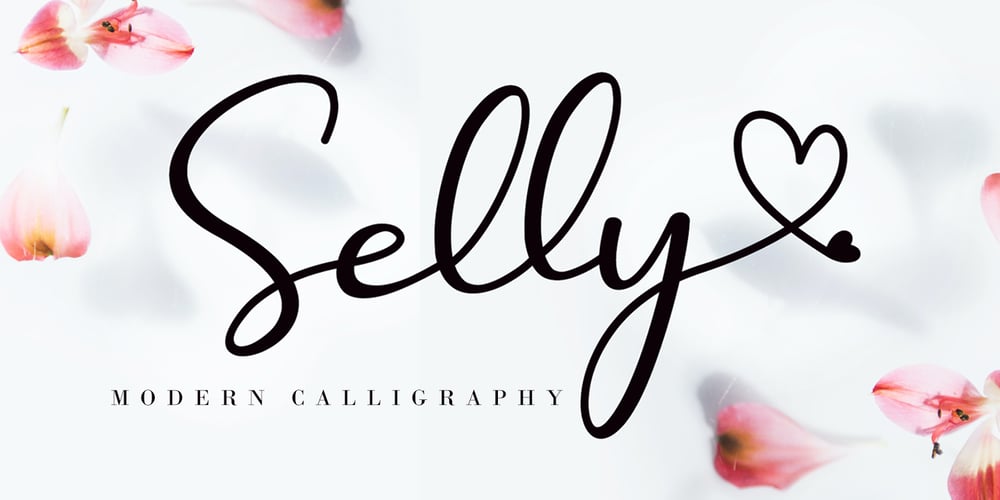
Selly Calligraphy Font Family was designed by Agung Eko Nugroho and published by AEN Creative Studio. Selly Calligraphy contains 2 styles and family package options. Selly is a beautiful modern calligraphy font featuring cute hearts in its swashes. It will elevate a wide range of design projects to the highest level, be it branding, headings, wedding designs, invitations, signatures, logos, labels, and much more!